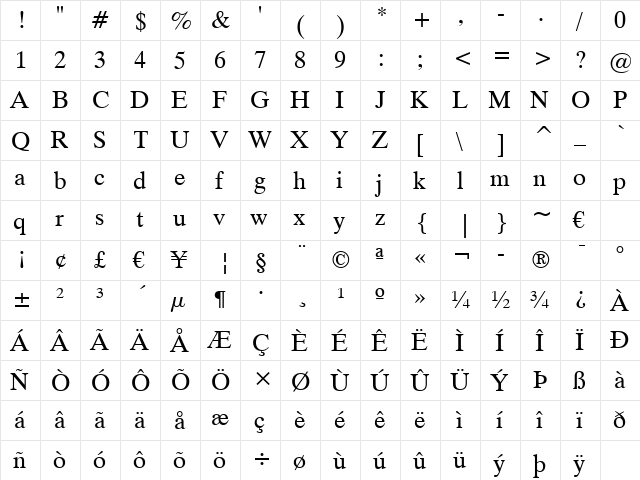
Dutch801 Rm BT Roman
Dutch801 Rm BT offers clean, dependable letterforms without strong stylistic allegiance, making it a practical choice for designers who need flexibility.